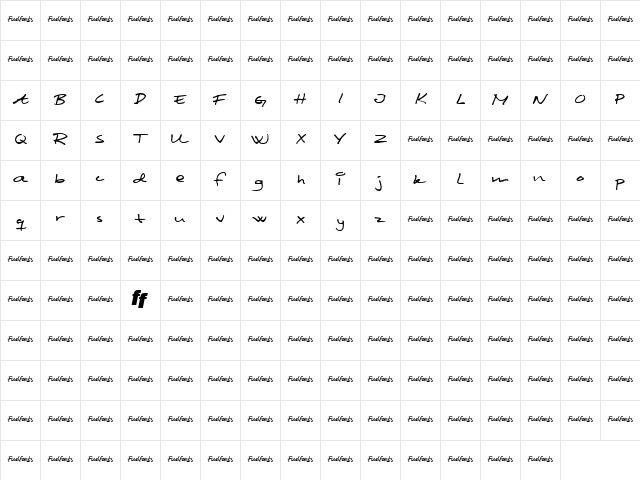
Scribbled Monkey Regular
Scribbled Monkey Family
Design Context for Scribbled Monkey
Scribbled Monkey is a composed and adaptable typeface that performs quietly and consistently across a wide range of design contexts.